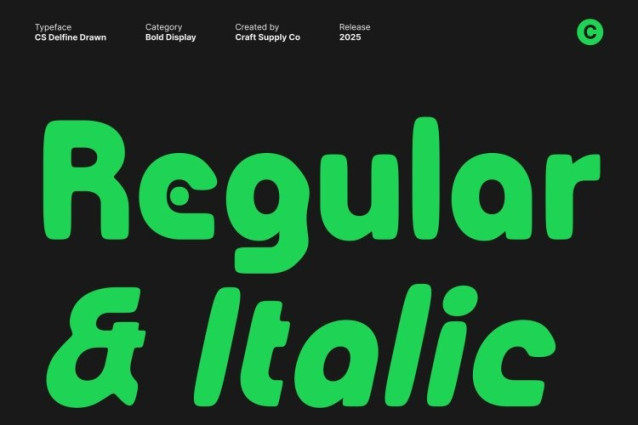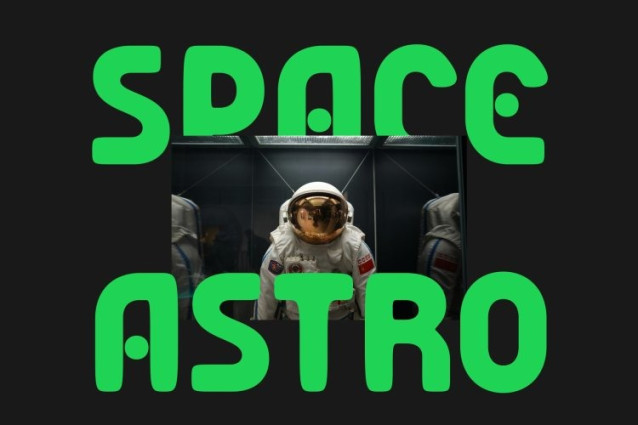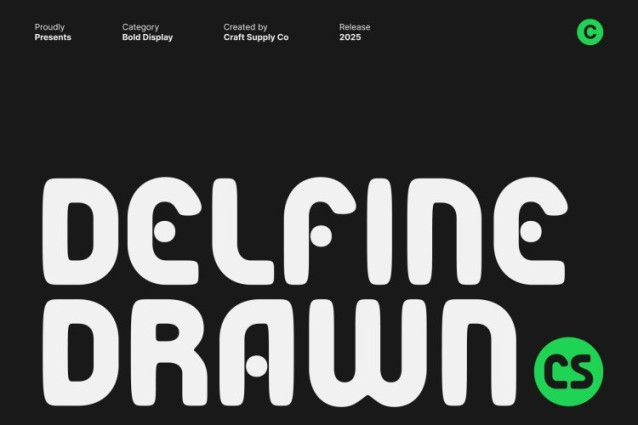
CS Delfine Drawn Font
CS Delfine Drawn Font – This is a bold and forward looking sans serif font crafted to deliver strong visual impact. Its techno inspired structure brings a sleek contemporary feel, making it a perfect choice for designers seeking a display font that captures modernity, innovation, and confidence.
Soft Shapes Enhanced with Drawn Expression
While the font carries the sharp spirit of techno aesthetics, its softened silhouettes add a friendly and fluid touch. The drawn effect enriches this softness, giving each character a handcrafted nuance that adds personality and depth. This unique combination makes the font both striking and approachable.
Bold Presence for High Visibility Designs
Designed to command attention, this font excels in applications requiring bold clarity whether on branding, logos, posters, or impactful headlines. Its strong forms maintain readability at large scales while projecting a contemporary and energetic tone.
Versatile for Branding, Logos, and Posters
The synergy of modern structure, expressive drawn texture, and soft-edged geometry makes this font ideal for a wide range of creative uses. From futuristic branding to dynamic promotional visuals, the font elevates designs with a look that is stylish, engaging, and full of modern energy.